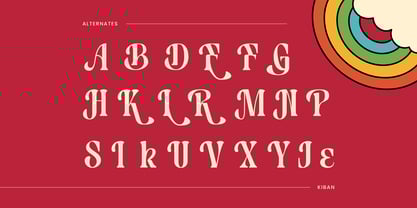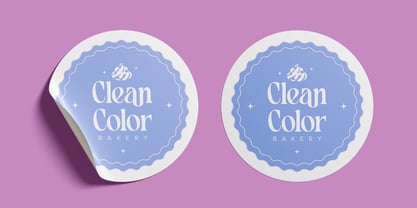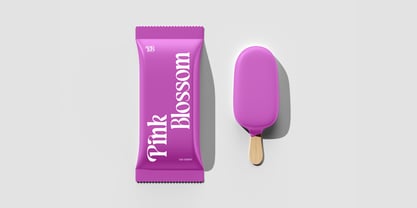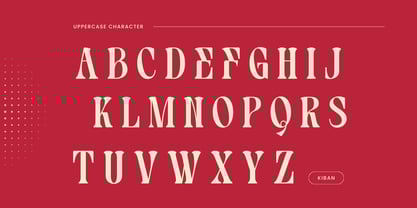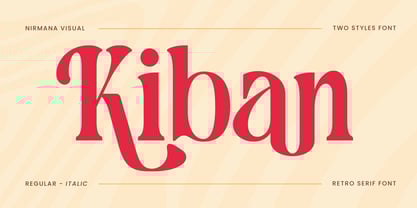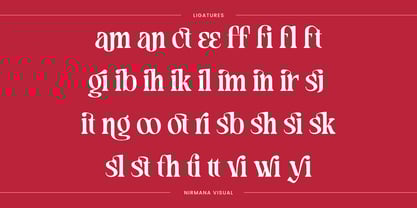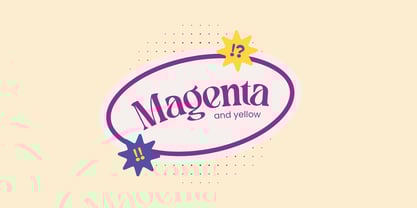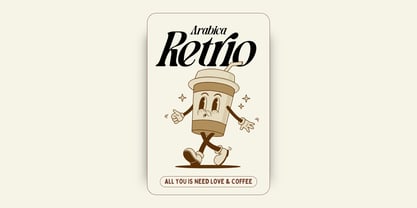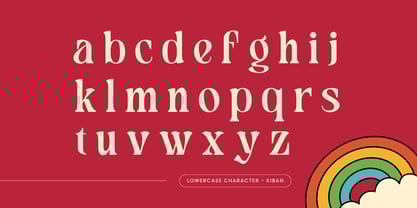
Kiban Retro
by Nirmana Visual
The Kiban Retro Font Family was designed by Sigit Dwipa and published by Nirmana Visual. Kiban Retro contains 2 styles and family package options. More about this family
Kiban is a serif retro typeface that embodies timeless elegance and vintage charm. Inspired by classic design aesthetics, Kiban features bold, intricate serifs, and smooth curves that evoke a sense of nostalgia while maintaining modern functionality. Perfect for branding, posters, logos, or editorial designs, Kiban adds with Regular and Italic font it's versatility shines in both large headlines and refined text settings, making it a standout choice for retro-inspired designs.
Designers: Sigit Dwipa
Foundry: Nirmana Visual